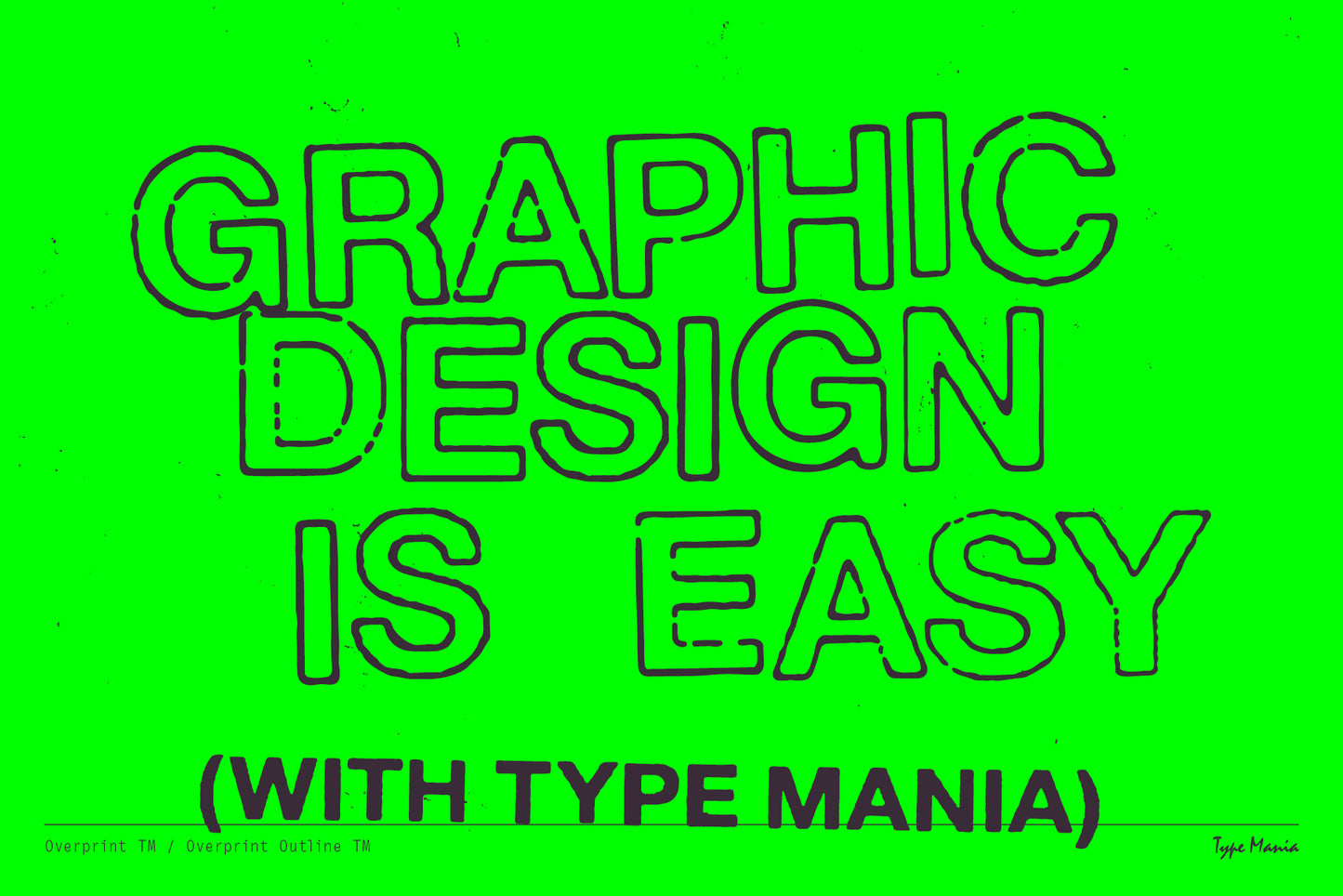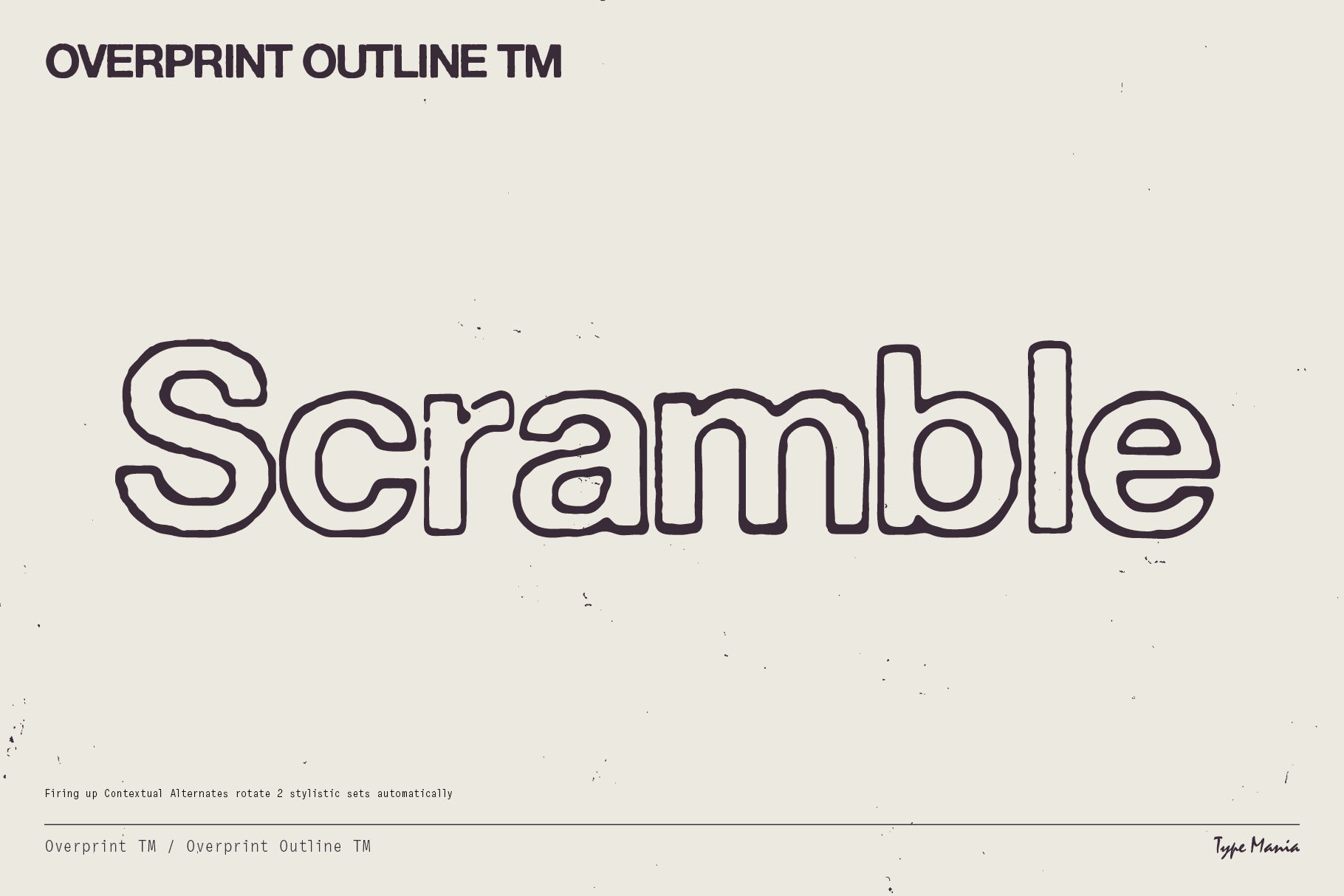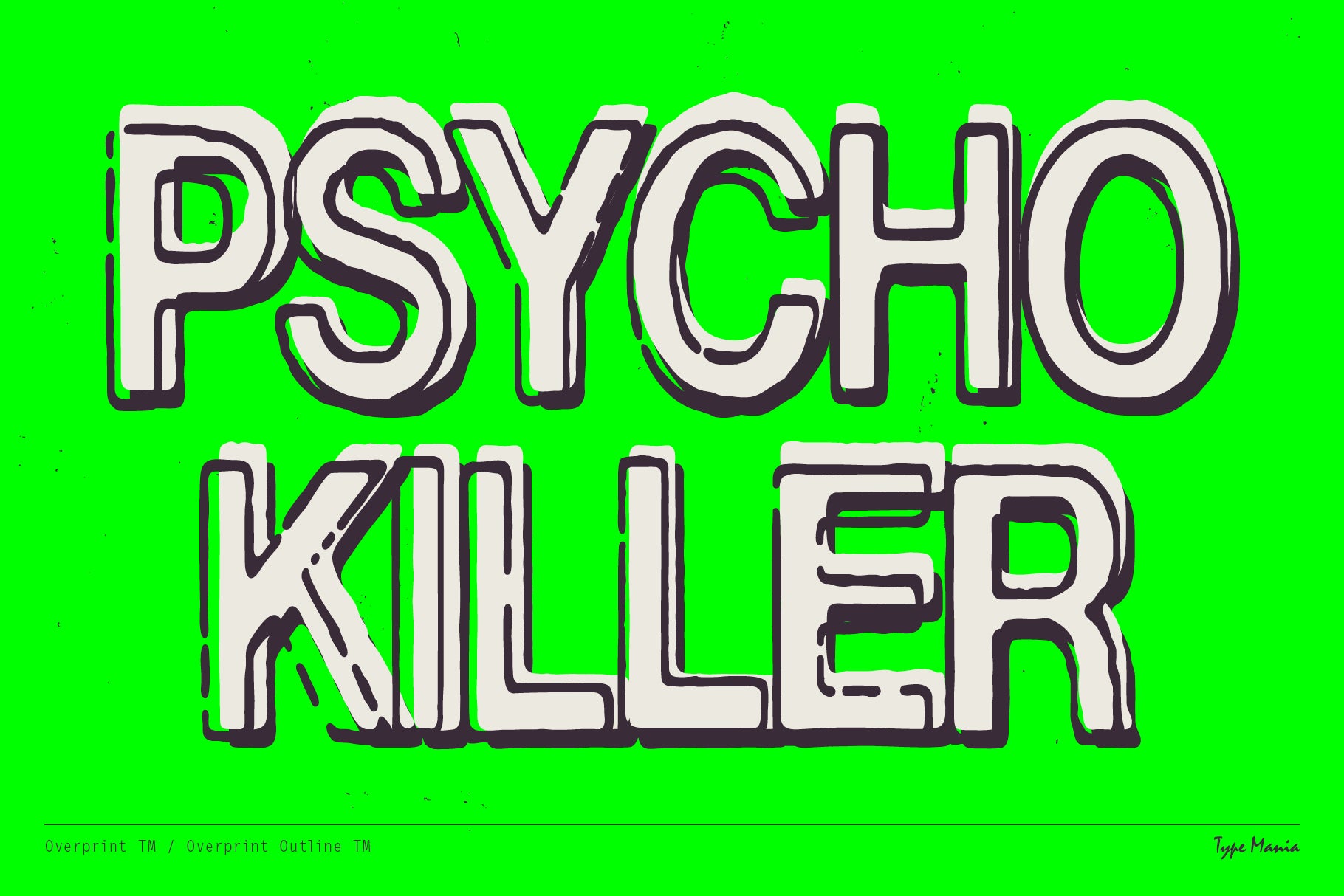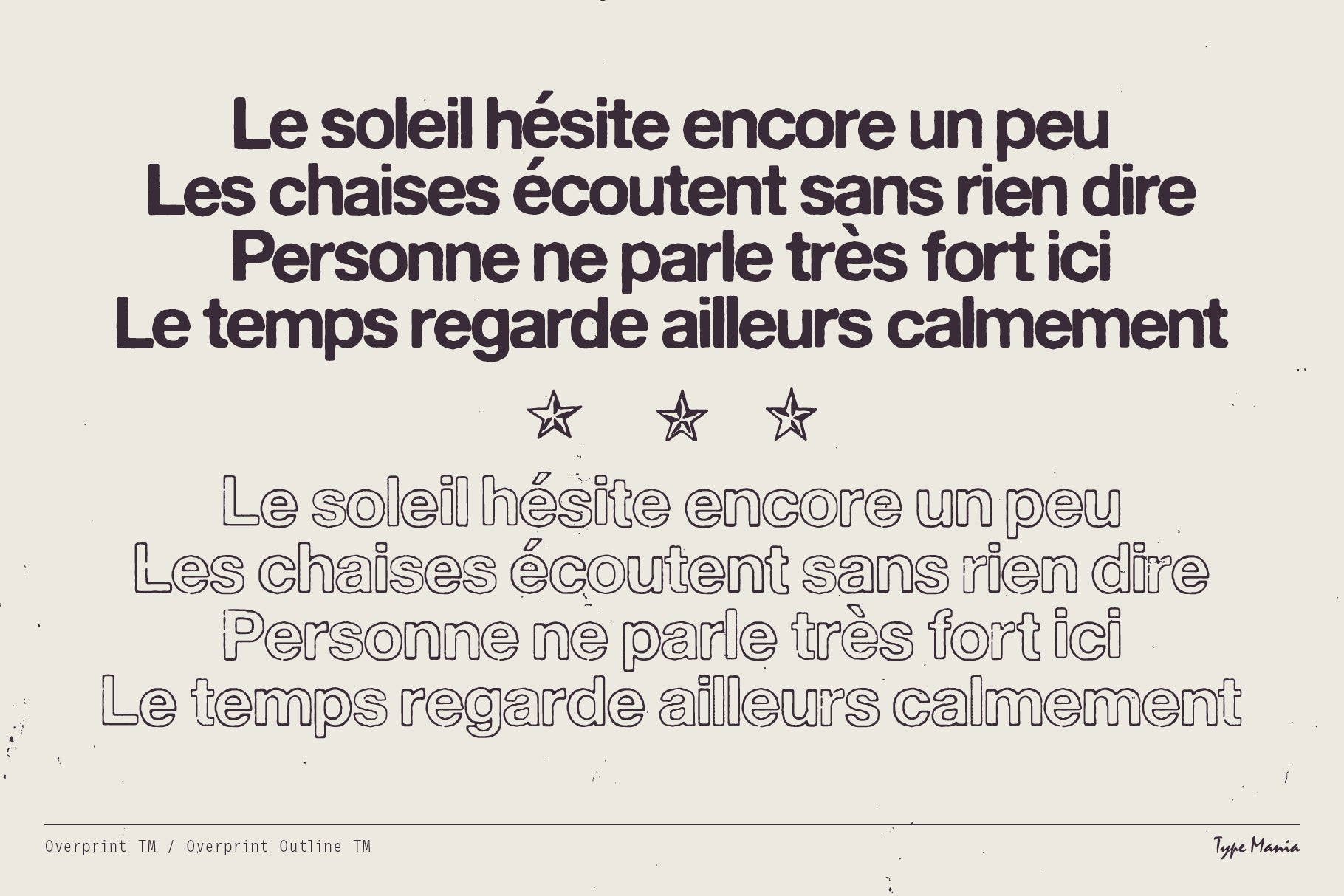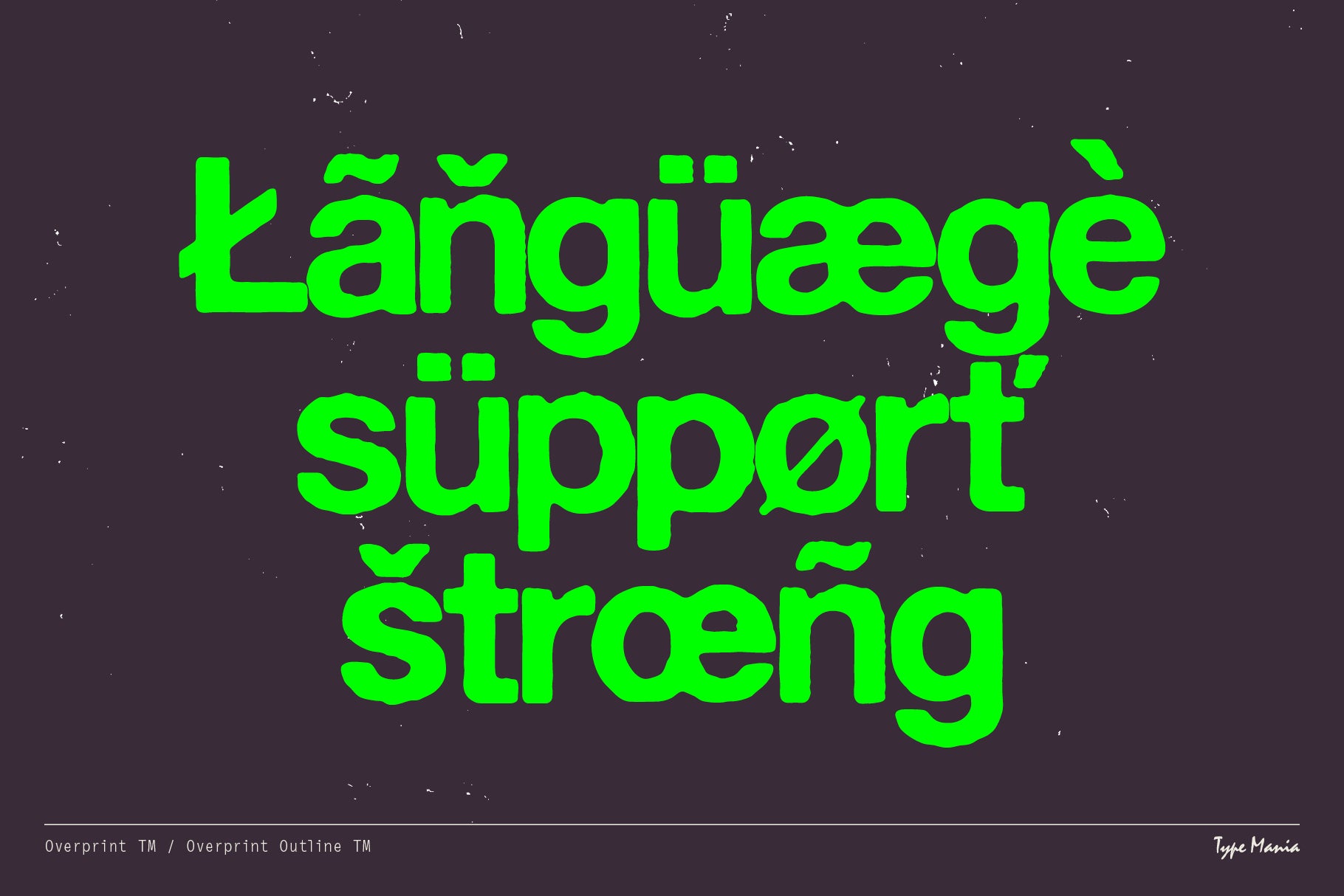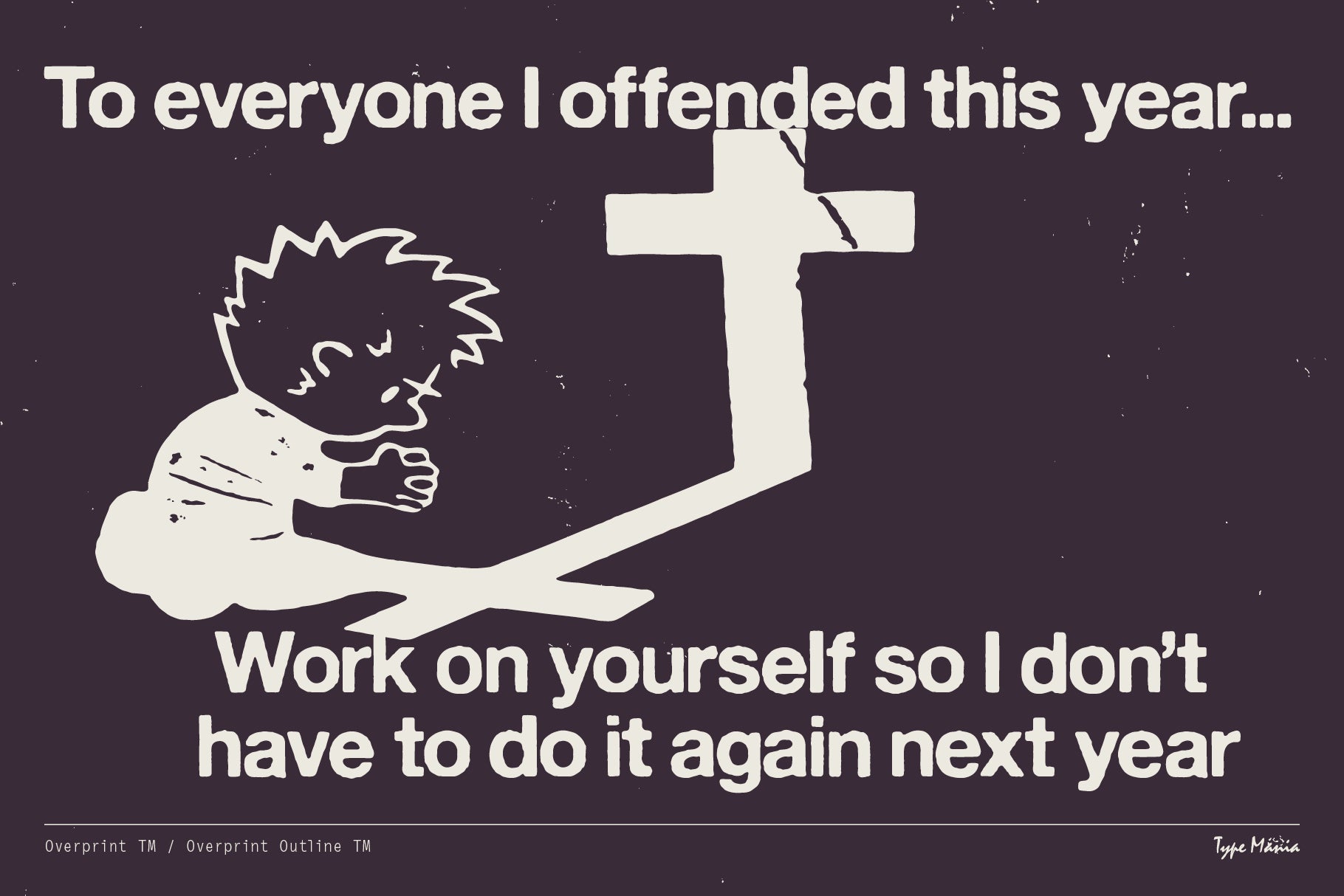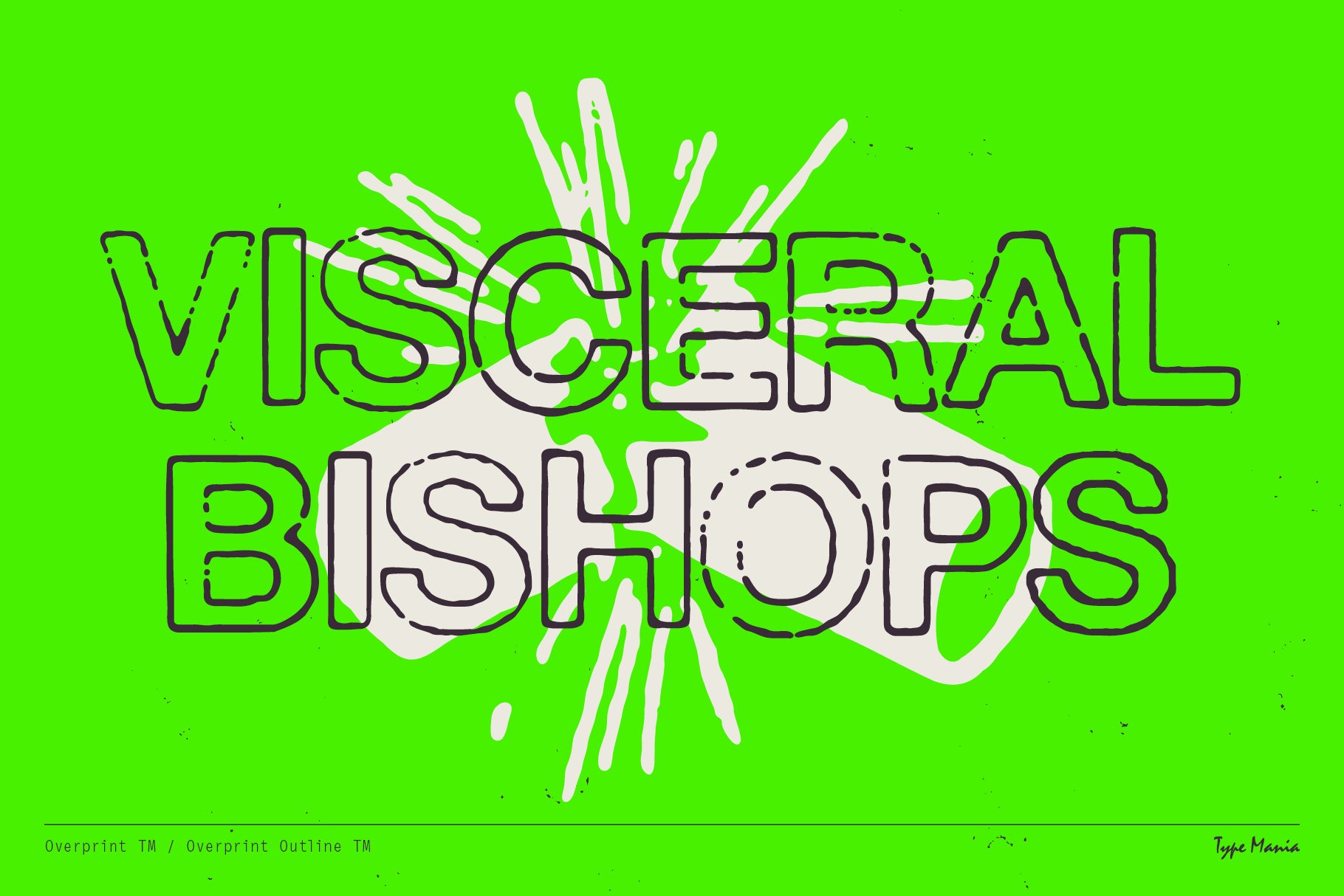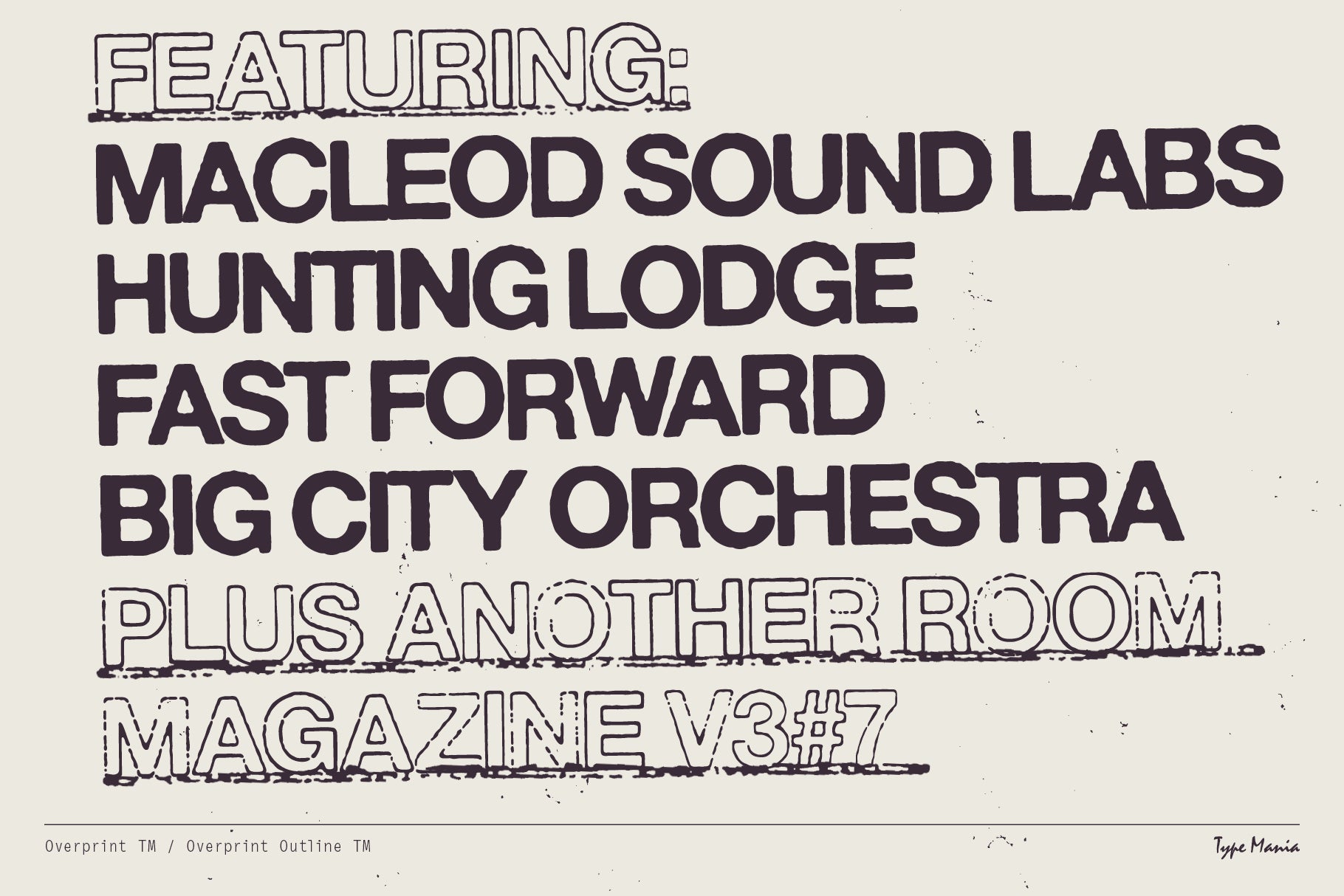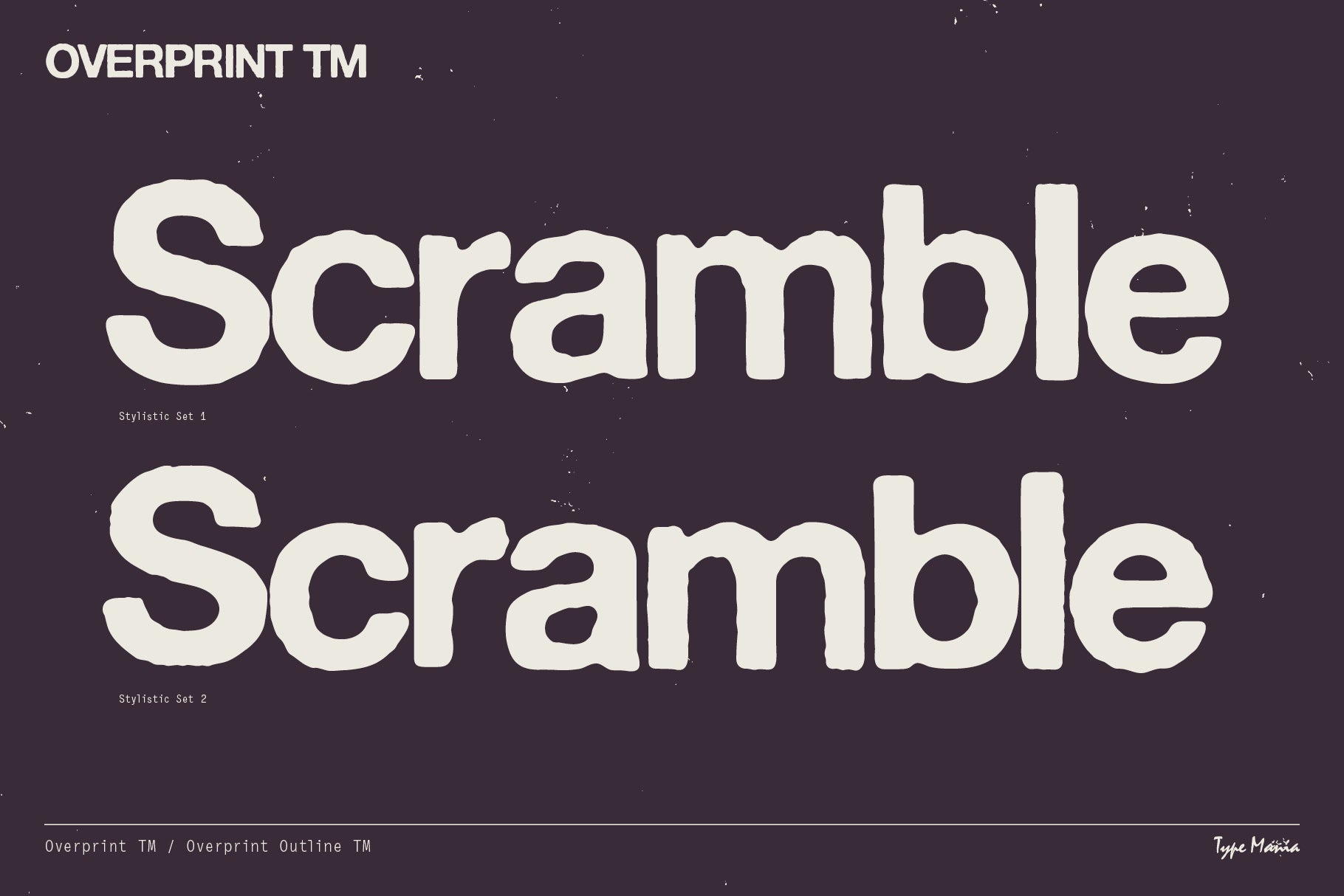
⭐ Overprint TM & Overprint Outline TM ⭐ Bundle ⭐
Two fonts derived from the same distressed foundation, featuring uneven edges and a xeroxed finish. Both typefaces – Overprint TM and Overprint Outline TM – rotate two stylistic sets automatically, introducing subtle imperfections across words. Craft organic layouts at a push of a button.
- 2 stylistic sets in both fonts
- The fonts are programmed to automatically shift between the stylistic sets